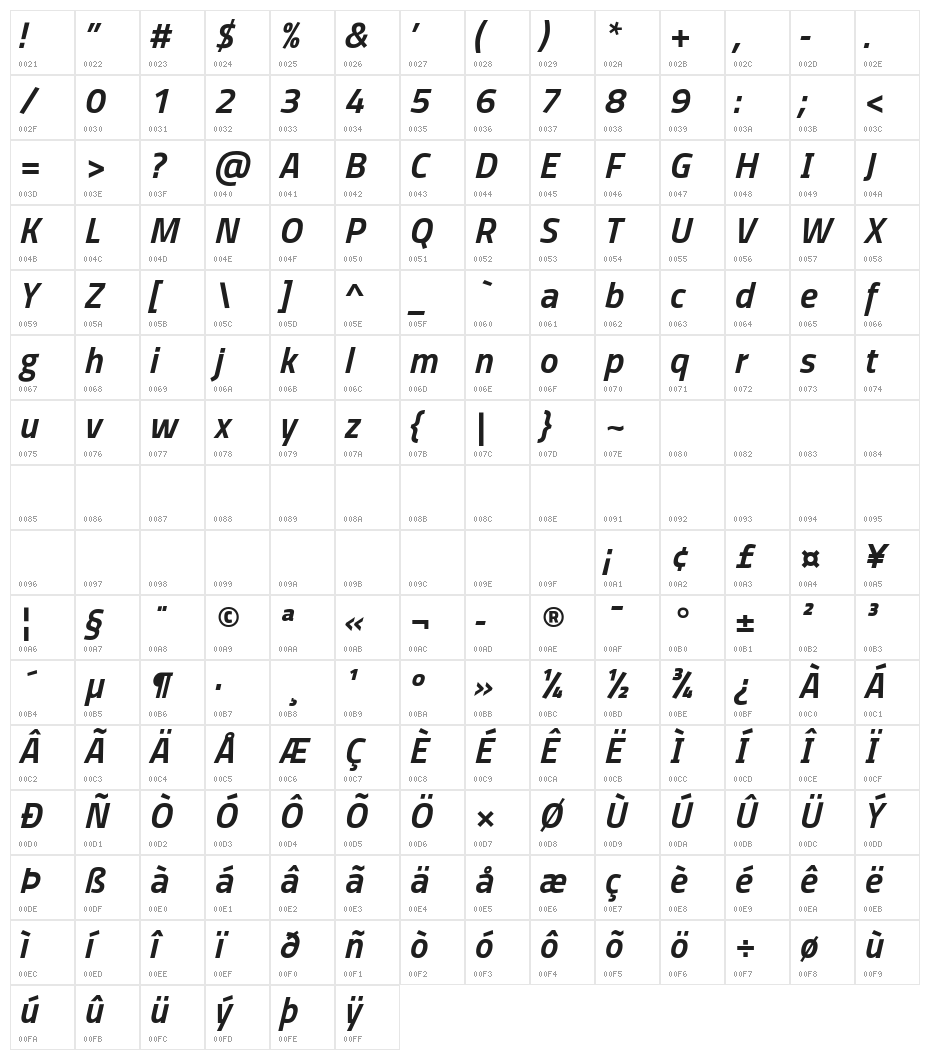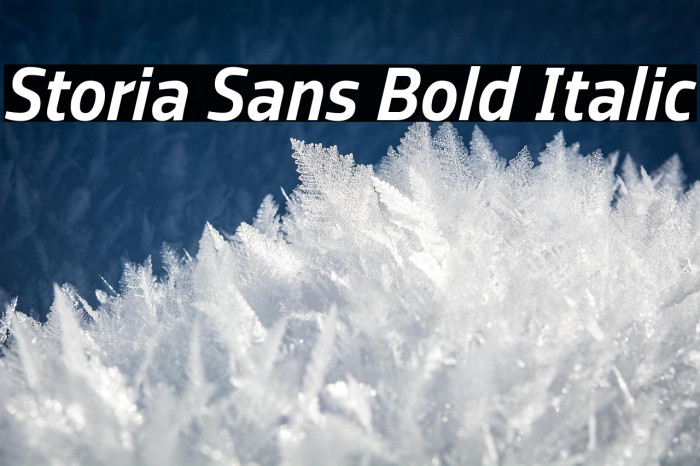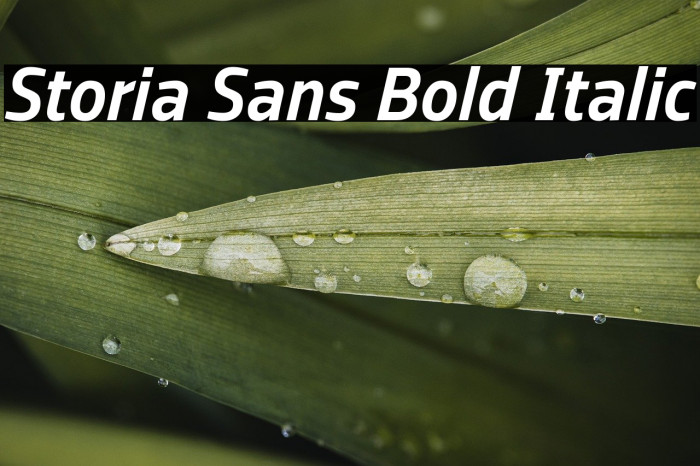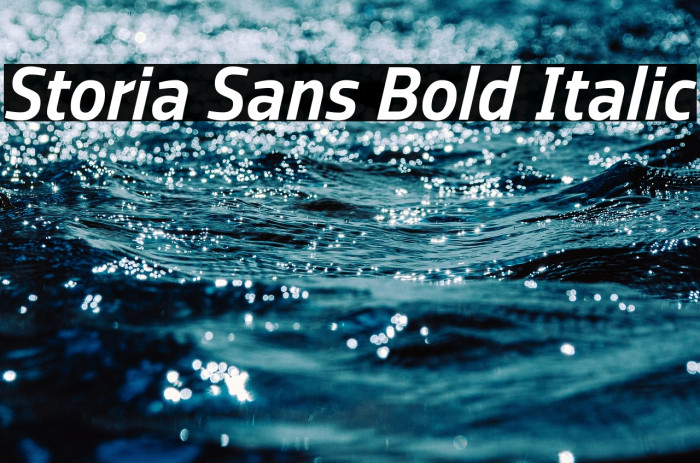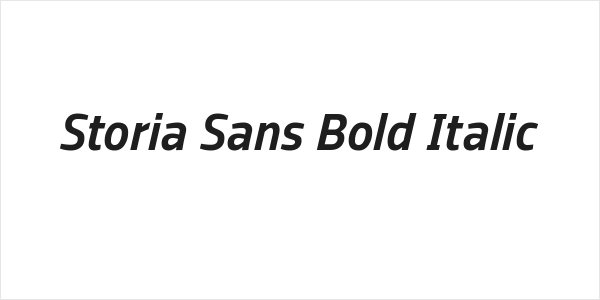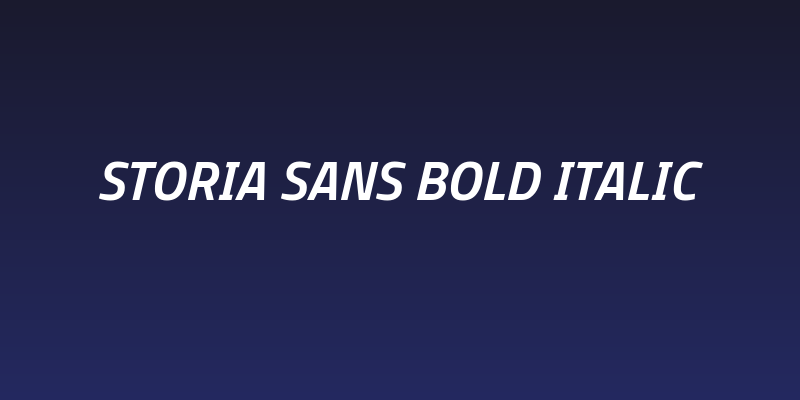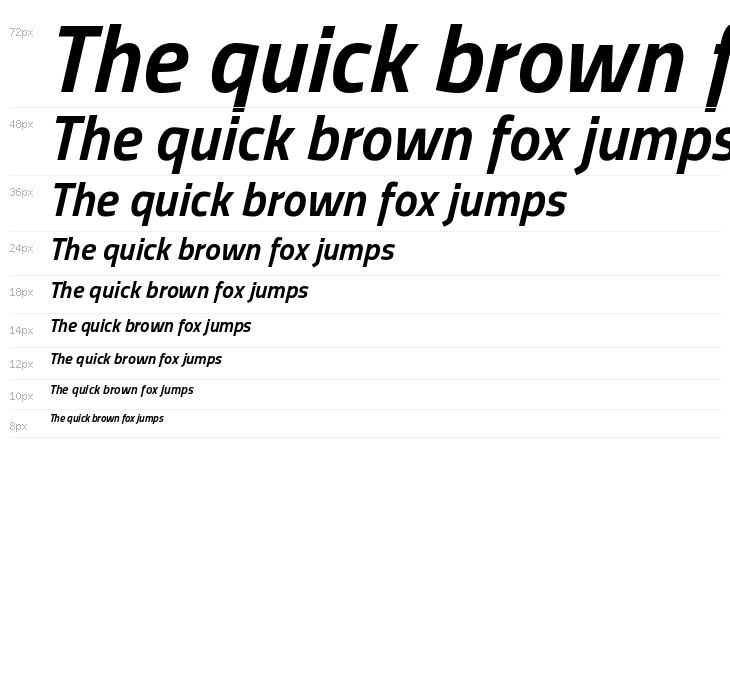
Storia Sans Bold Italic Font
Storia Sans Bold Italic Description
This font exhibits a modern sans-serif style with a bold and italicized appearance. The characters are slightly slanted, giving a dynamic and forward-moving impression. The strokes are consistent in thickness, contributing to a clean and robust look. The uppercase and lowercase letters maintain a uniform height, enhancing readability. The numerals are clear and distinct, matching the overall style of the alphabet. Special characters are well-defined, ensuring versatility in various applications. The font's design is sleek and contemporary, making it suitable for a wide range of digital and print media.
| Use Case | Headlines, Logos, Digital Media |
| Proposed Projects | Ideal for branding, advertising, digital media, and editorial design projects. |